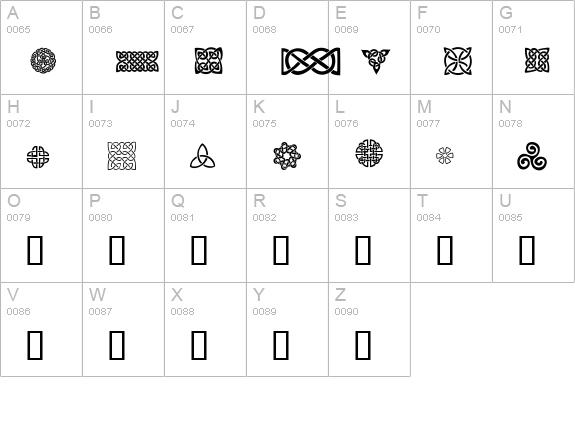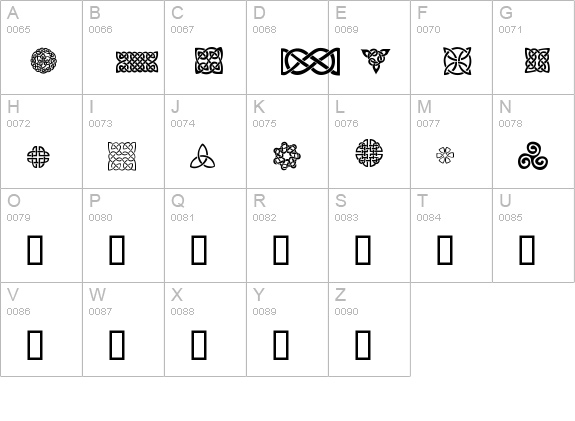
CeltiCons Font Details
CeltiCons font is a beautifully crafted typeface that exudes a sense of ancient mystique and Celtic charm. Inspired by intricate Celtic designs and symbols, this font features ornate details and intricate flourishes that add a touch of elegance to any project. Whether you're designing a logo, creating stunning graphics, or crafting a unique piece of typography, CeltiCons font is sure to make a lasting impression. Best of all, CeltiCons font is available for free download at FontsMarket.com. Embrace the timeless beauty of Celtic artistry with this stunning font that captures the essence of a bygone era. Add a touch of magic to your designs with CeltiCons font today!